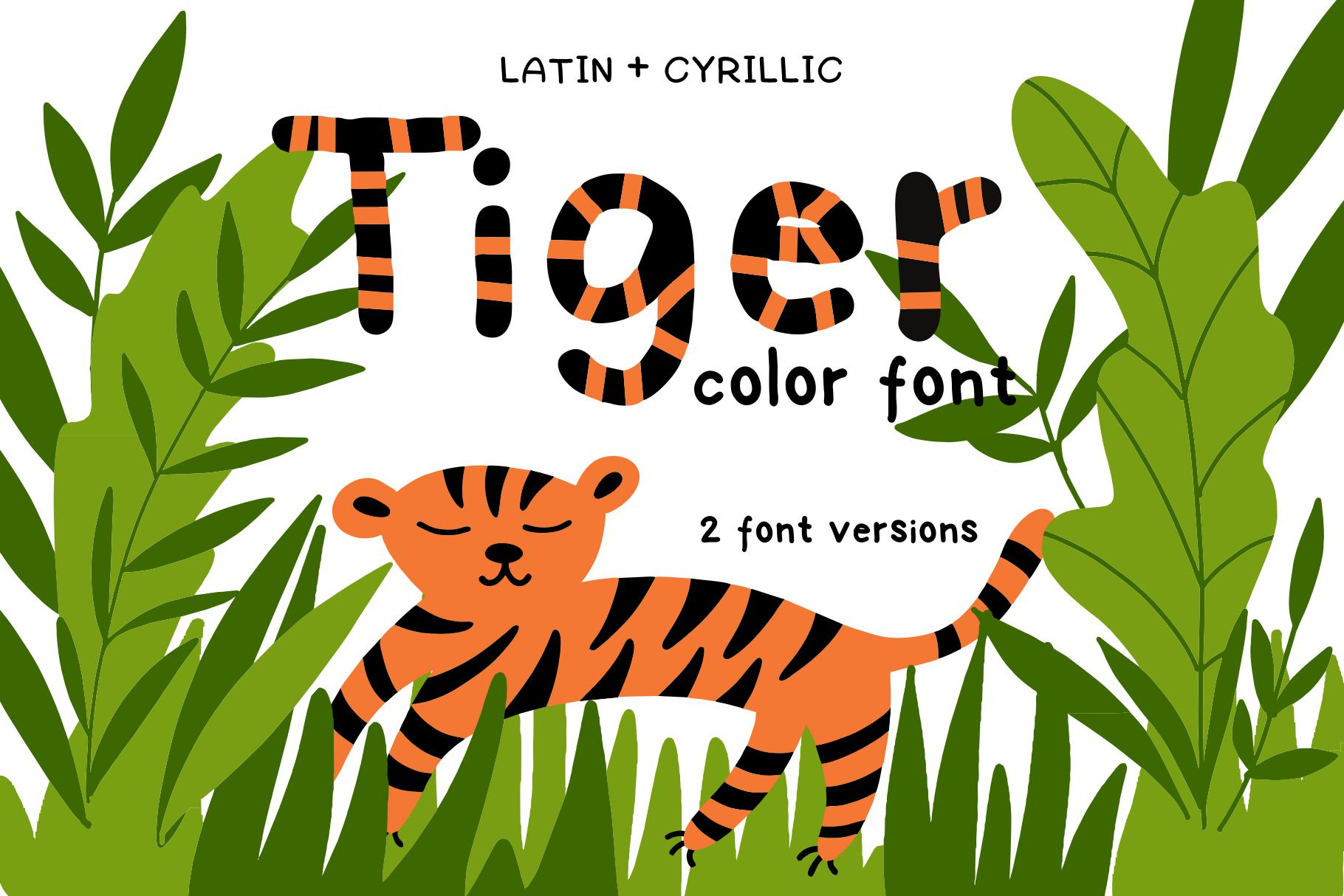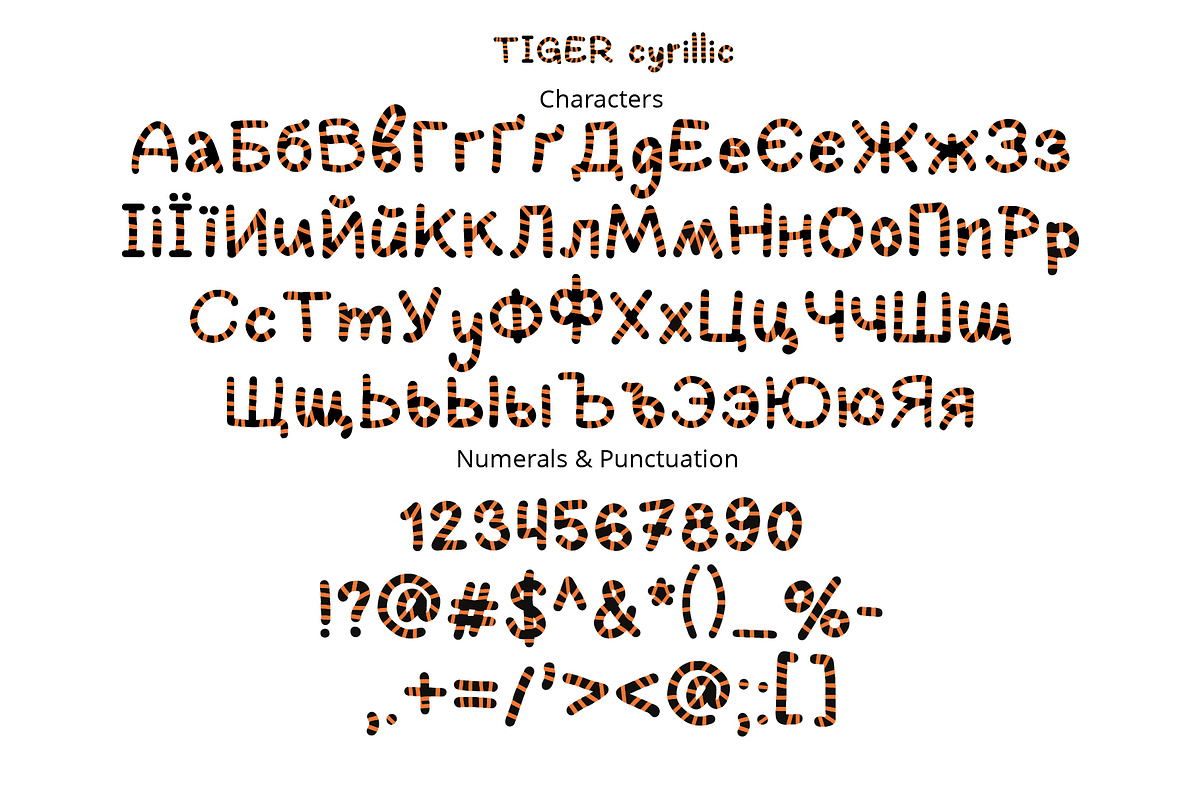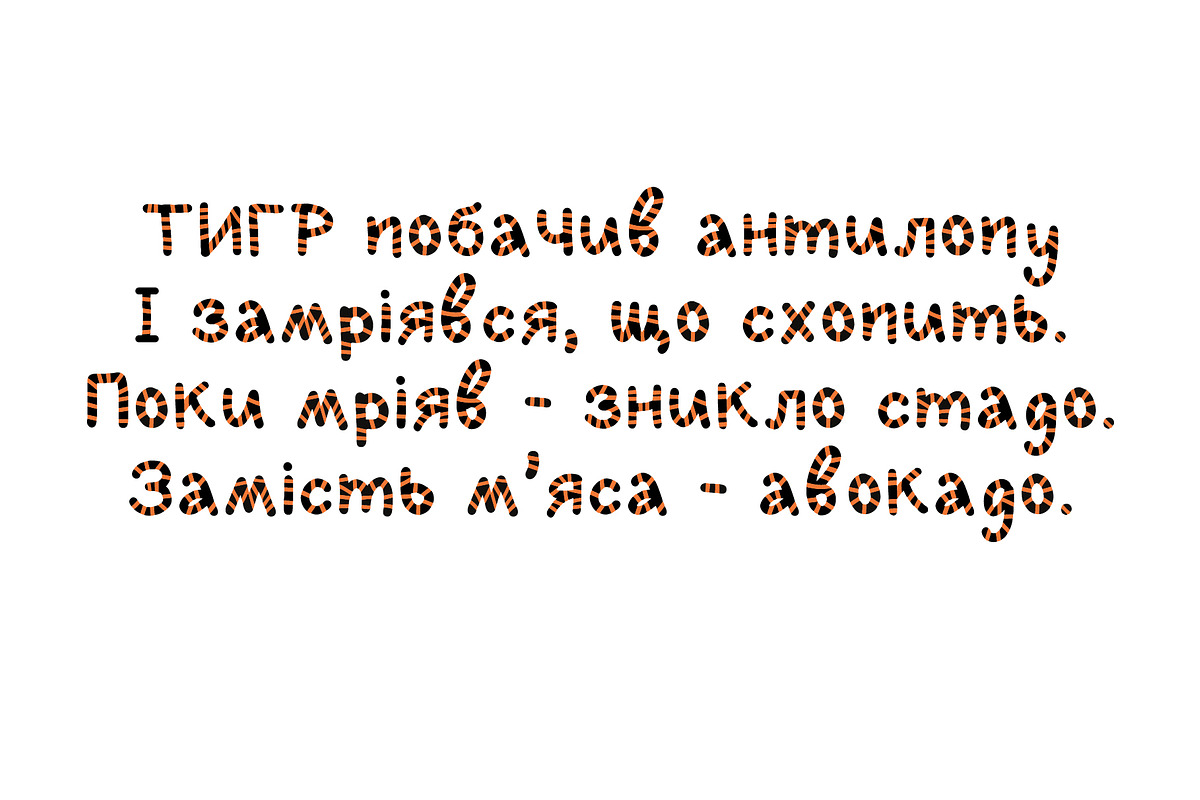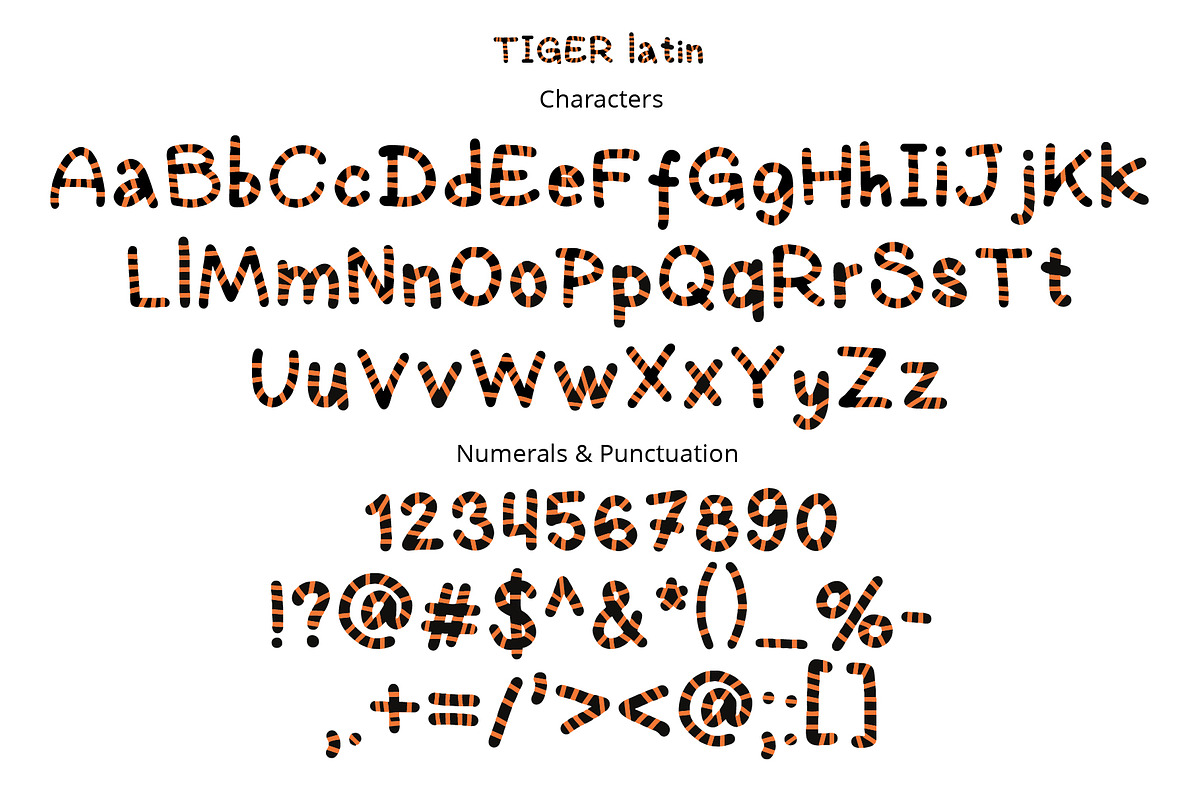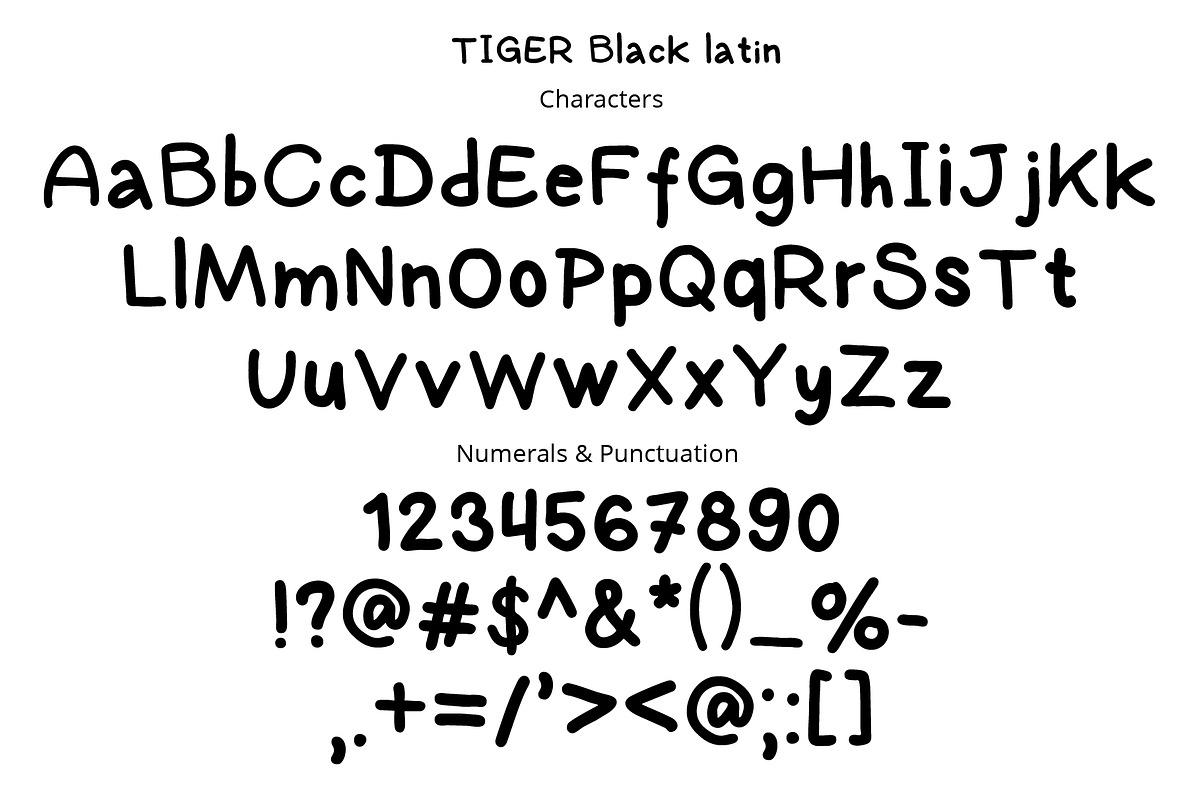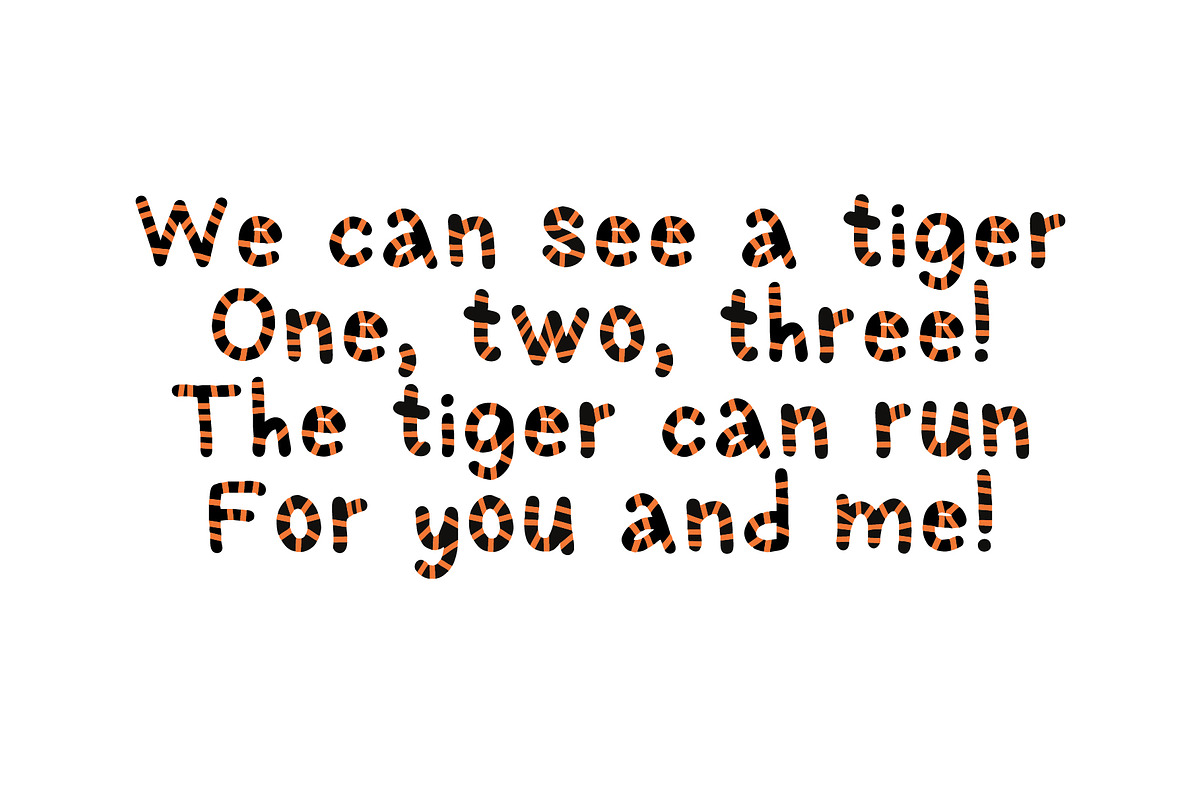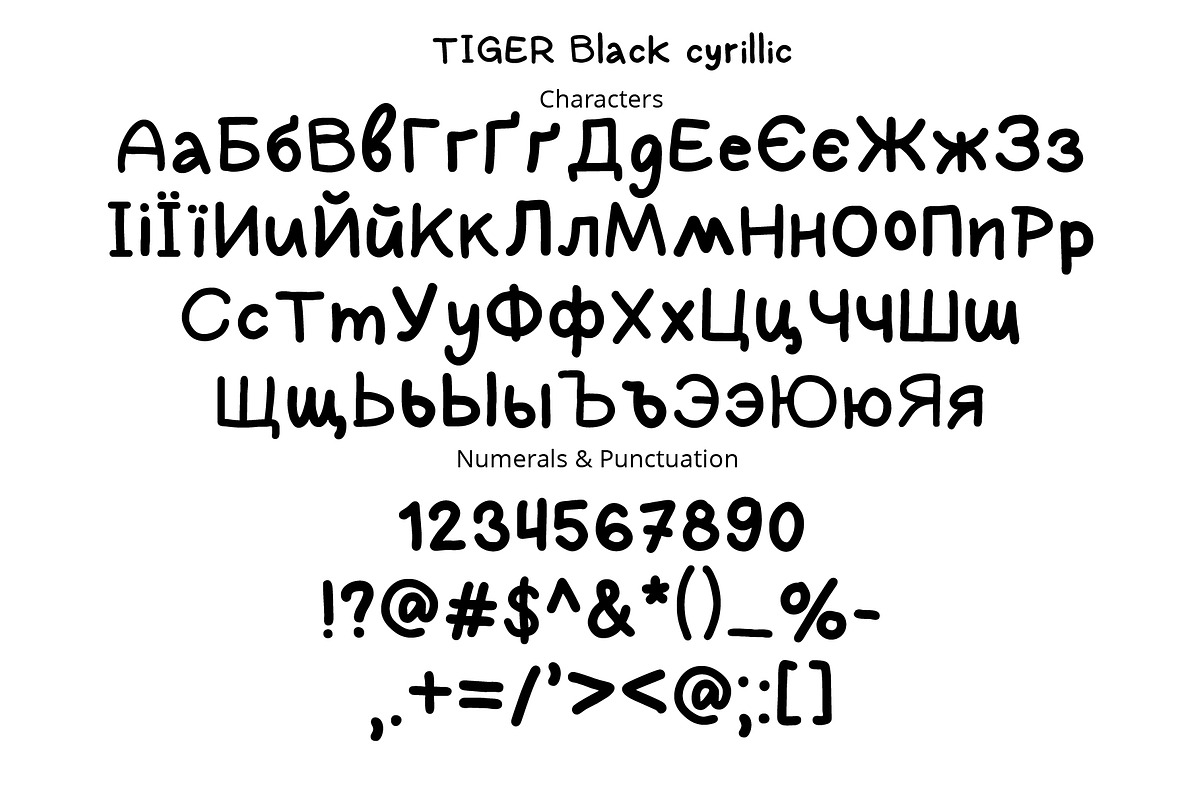
Tiger color font
Tiger Font – Playful Color OpenType-SVG Font with Latin & Cyrillic Support!
Bring your designs to life with Tiger Font, a vibrant and fun OpenType-SVG typeface featuring both Latin and Cyrillic characters! Perfect for adding a bold, colorful touch to your creative projects, Tiger comes in two versions: a lively multicolor version and a classic black version.
Whether you're working on t-shirt designs, social media graphics, typographic posters, kids' projects, packaging, or any playful artwork, Tiger will make your text pop and capture attention!
Font Features: Standard Latin characters: A-Z, a-z, 0-9, punctuation marks Western European accents support Cyrillic alphabet support: А-Я set, including Ukrainian letters
Unleash the playful energy of Tiger Font in your next project. Have fun & enjoy!